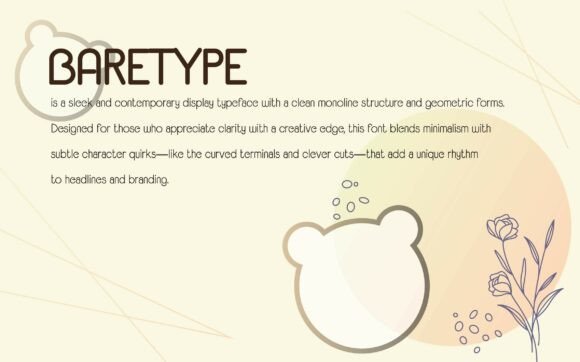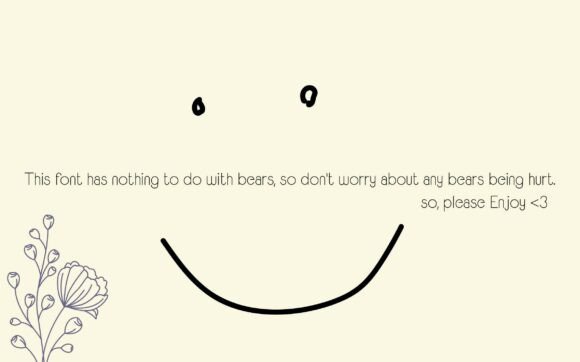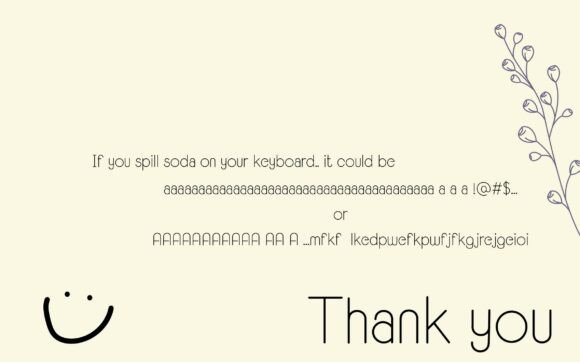
BareType Font: Elevate Your Design with Sleek Contemporary Typography
In the world of typography, the right font can make all the difference in elevating your design from ordinary to extraordinary. For designers and crafters seeking a modern, clean, and creative edge, BareType is a game-changing typeface that’s sure to impress. With its sleek monoline structure and geometric forms, BareType seamlessly blends minimalism with subtle character quirks, making it the perfect choice for headlines, branding, and more.
The Design Philosophy Behind BareType
BareType’s design philosophy revolves around the perfect balance of clarity and creativity. Its clean monoline structure provides a crisp, modern aesthetic that’s perfect for designs that require a professional touch. At the same time, the font’s geometric forms add a touch of sophistication and elegance, making it suitable for a wide range of applications, from luxury branding to digital marketing materials.
One of the standout features of BareType is its subtle character quirks, including curved terminals and clever cuts. These unique elements add a distinctive rhythm to text, making it more engaging and visually appealing. Whether you’re designing a headline, a logo, or a social media graphic, BareType’s quirks will help your text stand out from the crowd.
The Benefits of Using BareType
So, why choose BareType for your design projects? Here are just a few benefits of using this versatile typeface:
- Clarity and Legibility: BareType’s clean monoline structure and geometric forms ensure that your text is always clear and easy to read, even at small sizes.
- Creativity and Uniqueness: The font’s subtle character quirks add a touch of personality to your text, making it more engaging and memorable.
- Versatility: BareType is suitable for a wide range of applications, from headlines and branding to digital marketing materials and more.
- Modern Aesthetic: The font’s sleek, modern design ensures that your text will look fresh and contemporary, even in a crowded design landscape.
Who is BareType for?
BareType is perfect for designers, crafters, and businesses looking for a modern, creative typeface that can help elevate their brand. Whether you’re designing for a luxury client, a startup, or a small business, BareType’s versatility and unique character make it an excellent choice.
Some examples of design projects that could benefit from BareType include:
- Branding and Logo Design: Use BareType to create a memorable, modern logo that stands out from the competition.
- Headlines and Titles: Add a touch of sophistication and elegance to your headlines and titles with BareType’s clean, geometric forms.
- Digital Marketing Materials: Use BareType to create eye-catching social media graphics, email headers, and more.
- Packaging and Label Design: Add a modern touch to your packaging and label designs with BareType’s sleek, contemporary aesthetic.
In conclusion, BareType is a game-changing typeface that’s perfect for designers and crafters seeking a modern, creative edge. With its sleek monoline structure, geometric forms, and subtle character quirks, BareType is the perfect choice for a wide range of design applications. Whether you’re designing for a luxury client or a small business, BareType is sure to elevate your design and help you stand out in a crowded design landscape.